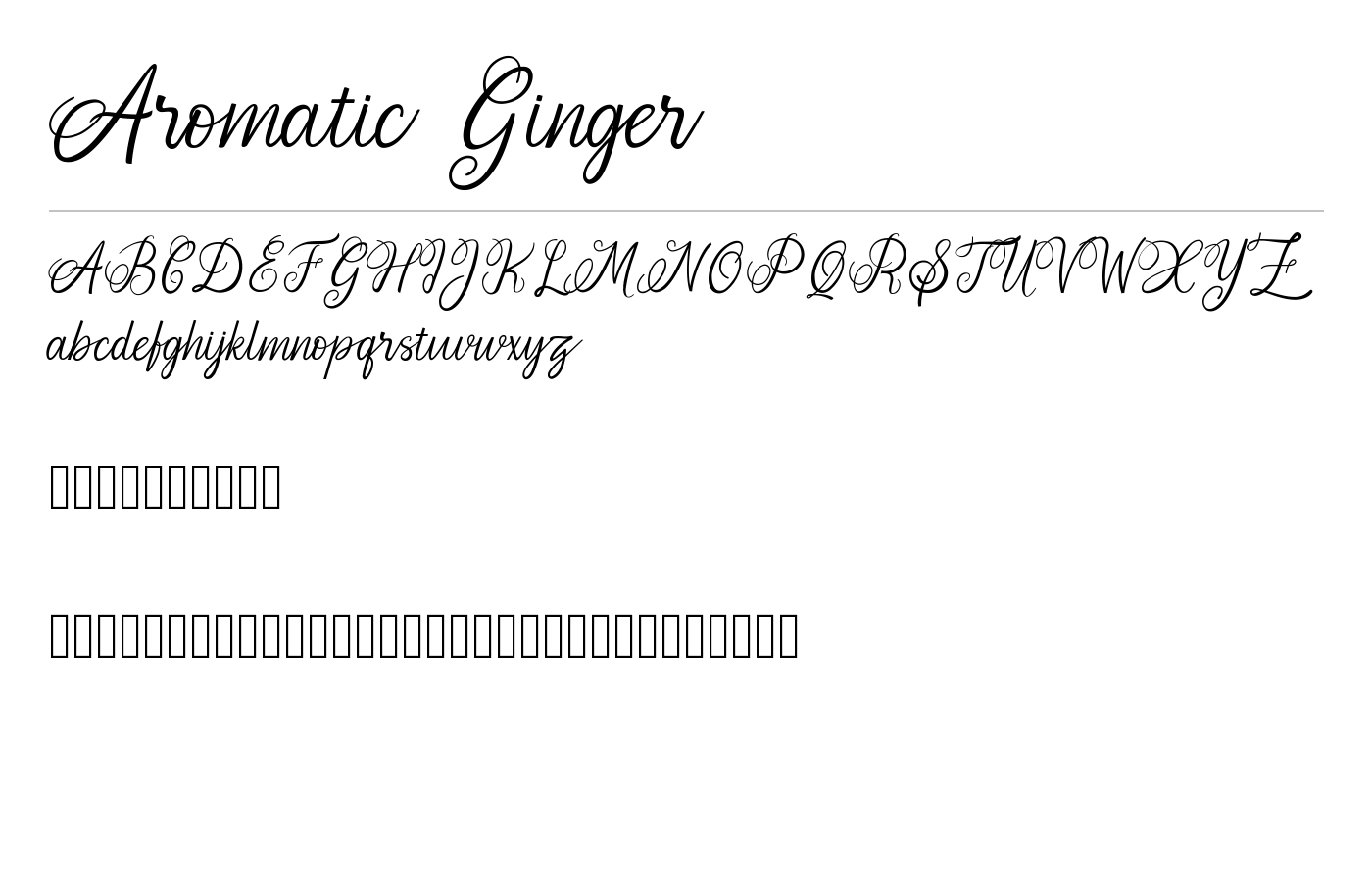
Aromatic Ginger is an elegant script font with graceful, flowing lines and finely detailed letterforms that evoke a sense of sophistication and charm. Its delicate strokes and cursive style make it perfect for luxury branding, invitations, and feminine designs where a touch of refinement and artistry is desired. This font shines in decorative uses like logos and headlines, where its intricate character adds personality without overwhelming the message.
Aromatic Ginger Font
About Aromatic Ginger Font